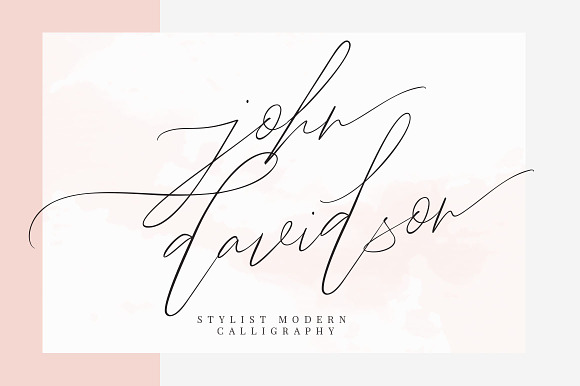
Beautiful - John Davidson Font
Beautiful John Davidson Font is perfect for various design applications including elegant wedding invitations, luxury brand identities, sophisticated personal branding, refined gentleman's club materials, premium menswear labels, distinguished law firm communications, classic barber shop signage, high-end whiskey packaging, elegant restaurant menus, and timeless masculine lifestyle brands. This distinguished typeface excels in projects requiring sophisticated masculinity and refined elegance that celebrates the classic gentleman's aesthetic with contemporary relevance and timeless appeal.
What makes Beautiful John Davidson Font so exciting is its exquisite embodiment of refined masculine elegance and sophisticated gentleman's style through letterforms that suggest the confident grace of the modern distinguished man. The font features flowing script elements that mirror elegant penmanship, refined proportions that communicate sophistication and breeding, and distinctive character details that evoke the timeless appeal of classic masculine refinement. Its distinctive gentlemanly character and elegant masculinity make it perfect for brands seeking to communicate distinction, quality, and the sophisticated confidence that defines the modern refined gentleman.
Beautiful John Davidson Font family includes elegant script weights and distinguished variations that enhance its versatility for different masculine luxury applications. Each style maintains the font's signature refined character while providing options for various sophisticated design approaches. The family also features elegant decorative elements, gentleman's ornaments, and classic masculine symbols that can be combined with the letterforms to create cohesive distinguished gentleman design systems.
Whether you're developing luxury masculine brands, distinguished services, or sophisticated gentleman's communications, Beautiful John Davidson Font Free Download provides elegant typography that speaks to discerning men and celebrates the timeless appeal of refined masculine sophistication and classic gentleman's style. This typeface transforms ordinary communications into distinguished statements that reflect quality, breeding, and the sophisticated confidence of the modern gentleman. The font's elegant appeal makes it particularly effective for luxury menswear brands, distinguished service providers, and businesses targeting sophisticated men who appreciate classic refinement and timeless masculine elegance.
Beautiful John Davidson Font stands out by delivering authentic masculine sophistication that feels genuinely refined rather than artificially formal or overly ornate. Its carefully crafted elegant proportions and distinguished details ensure that designs feel authentically connected to gentleman's traditions while maintaining contemporary relevance and appeal. From luxury brand communications to distinguished personal stationery, this font provides designers with tools to create communications that celebrate refined masculinity and inspire appreciation for gentleman's elegance through sophisticated, distinguished typography that honors the modern refined man.